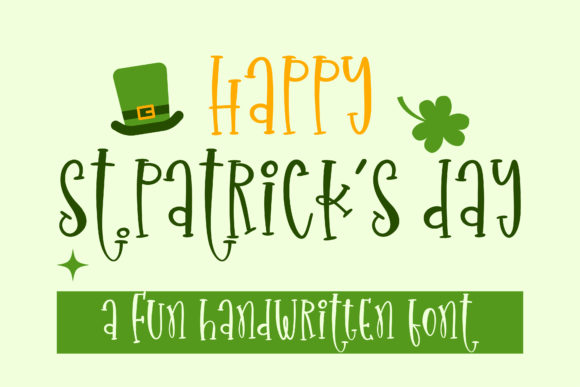
Looking for the best font to make your business cards stand out? Look no further than Happy St.Patrick’s Day Font! Created by BitongType, this unique and interesting script font is sure to catch the eye of anyone who sees it.
With its quirky and playful design, Happy St.Patrick’s Day Font is incredibly versatile and can be used in a wide variety of contexts. Whether you're creating business cards, invitations, or any other type of document, this font is sure to make a statement.
One of the best features of Happy St.Patrick’s Day Font is that it is PUA encoded. This means that you can easily access all of the glyphs and swashes, allowing you to create custom designs that truly stand out. Whether you're a professional graphic designer or just getting started, this font is easy to use and offers endless possibilities.